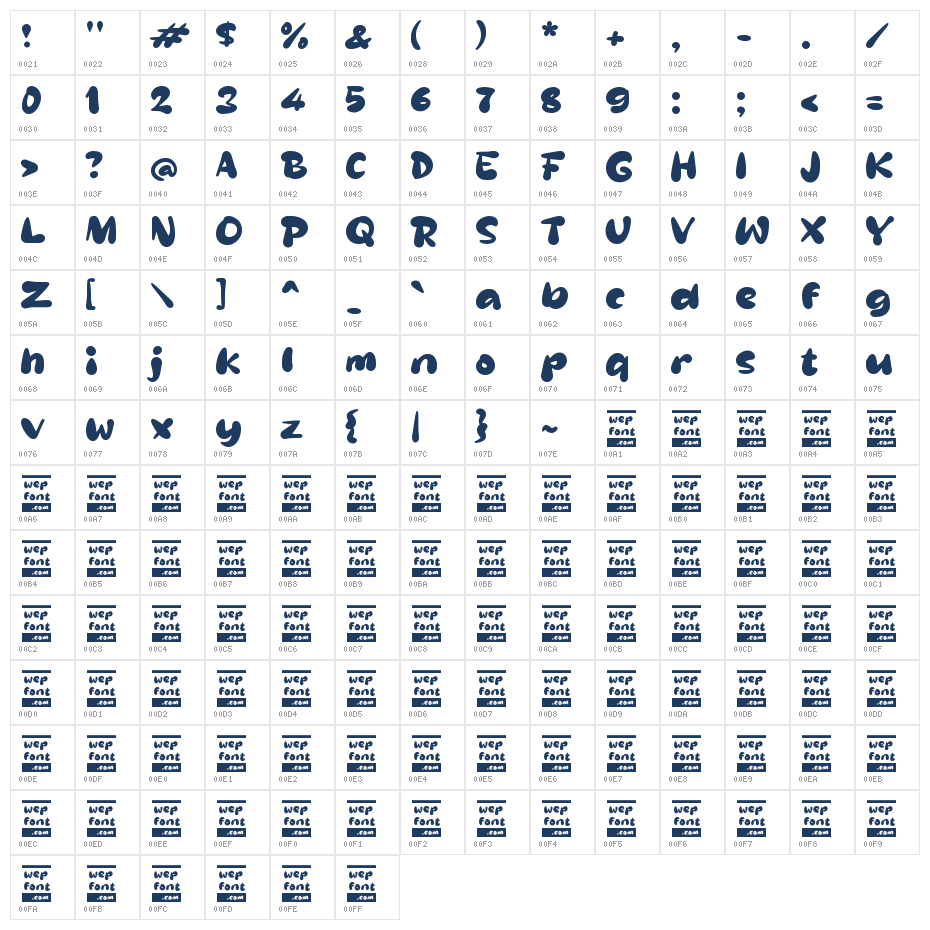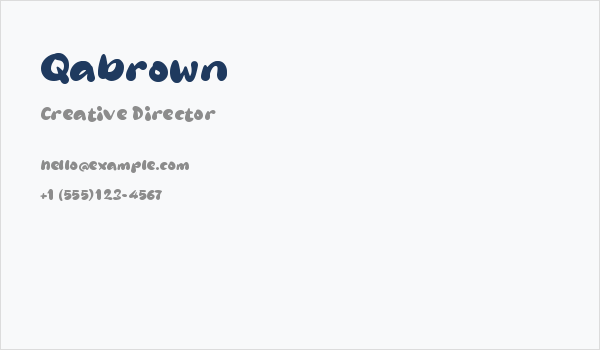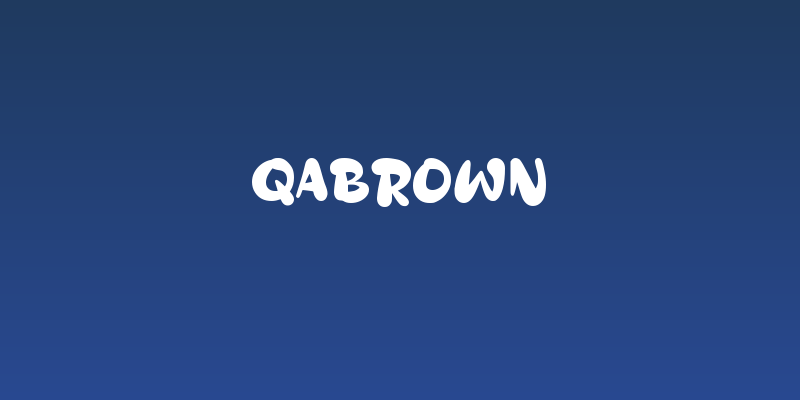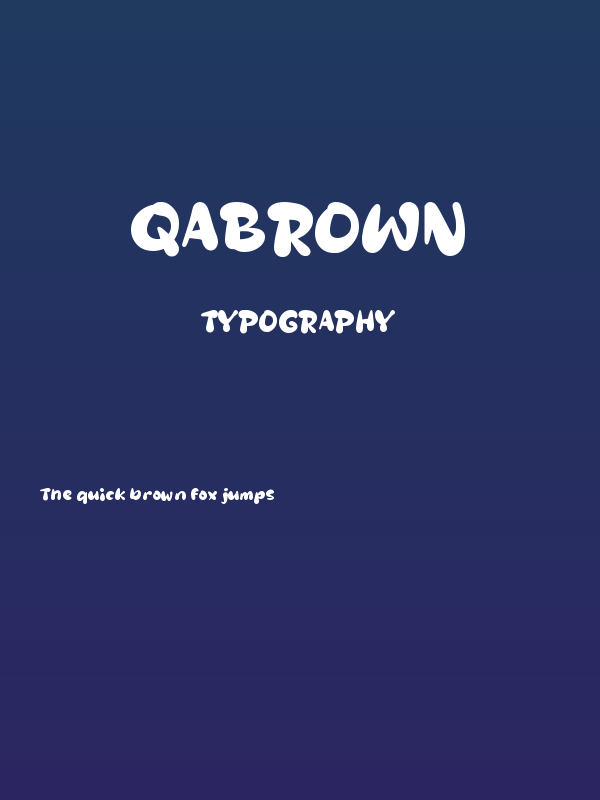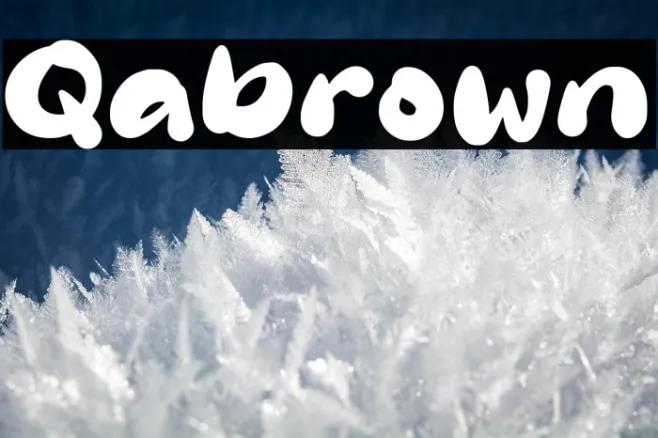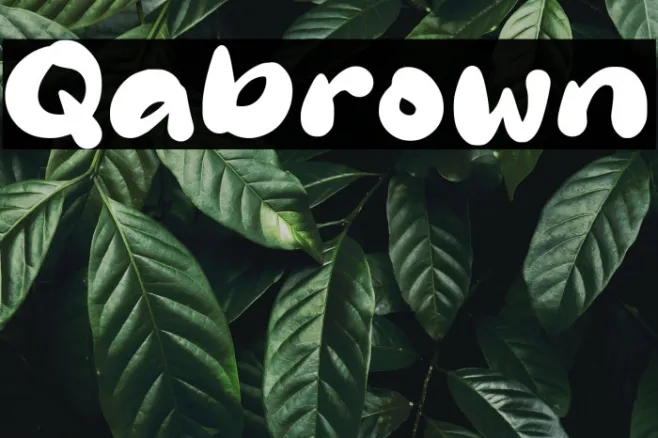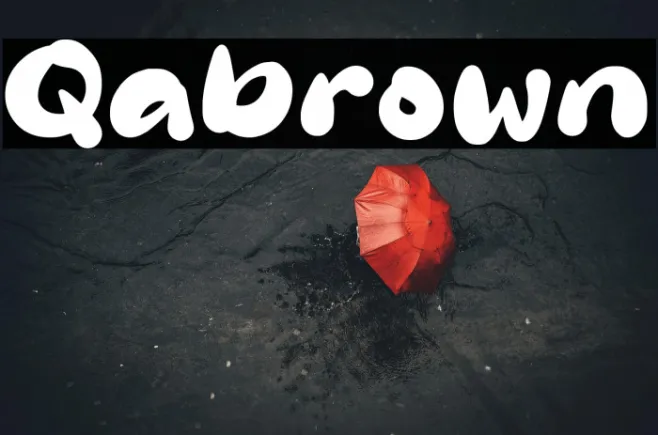
Qabrown Font
Qabrown Description
A playful, bold, rounded handwritten style font with a casual and friendly appearance.
QABROWN UPPERCASE
QABROWN LOWERCASE
QABROWN OTHER CHARS
| Overall Style | Casual, Playful, Friendly |
| Use Case | Headlines, Logos, Children's products, Greeting cards |